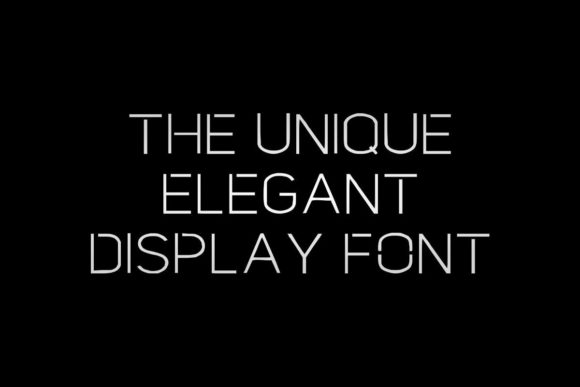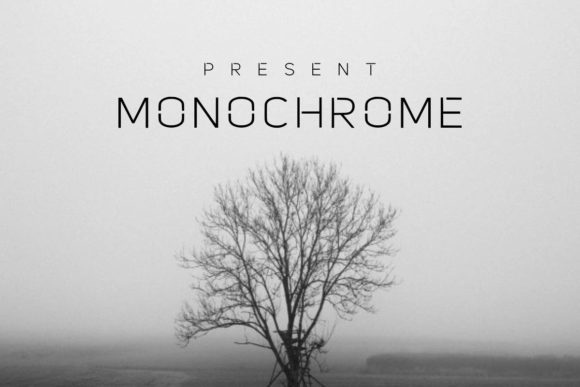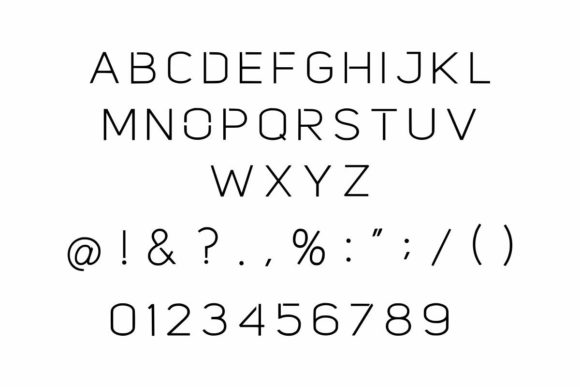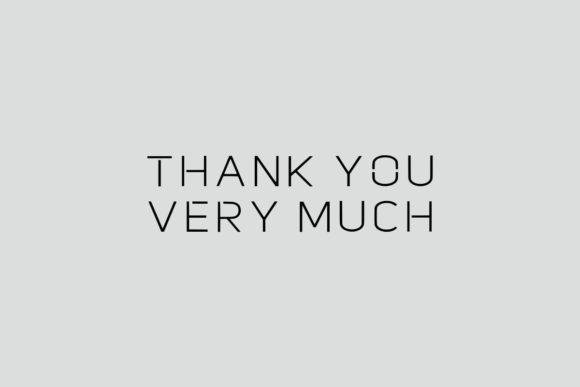
Introduction to Gotenk Font
Have you ever stared at a blank canvas, eager to bring your creative idea to life, but unsure of the perfect design element to tie everything together? This is where the Gotenk Font comes in – a game-changing design resource that can elevate your creative project to new heights.
As a designer, you understand the importance of a high-quality font that not only complements your design but also sets it apart from the rest. The Gotenk Font is a minimal and neat sans serif font that offers a transparent background, making it the perfect addition to your design arsenal. With its versatility, you can easily use it on a wide range of projects, from digital to print, and watch your ideas shine.
Key Features of Gotenk Font
- Gotenk Font comes in a single weight with 256 glyphs, making it suitable for various design applications
- Unique characteristics: Distinctive and modern design aesthetic, perfect for adding a touch of elegance to creative projects
Honest Review: Gotenk Font
As a designer, I’m always on the lookout for high-quality design resources that can elevate my creative projects. Recently, I had the chance to try out the Gotenk Font, and I must say it’s been a pleasant experience.
What works well: ✨ The Gotenk Font is incredibly versatile, with a wide range of styles and weights to choose from. It’s perfect for designers who want to add a unique touch to their projects without sacrificing readability. I also appreciate the transparent background, which makes it easy to layer and composite with other design elements.
- ✨ High-quality glyphs and characters
- ✨ Wide range of styles and weights
- ✨ Transparent background for easy compositing
However, there are some limitations: ⚠️ The font could benefit from more language support, as it’s currently only available in a limited number of languages. Additionally, the free version has some watermarked elements, which may not be ideal for commercial projects.
Overall, I’m impressed with the Gotenk Font, and I think it’s a great addition to any designer’s toolkit. While it’s not perfect, its strengths far outweigh its limitations, making it a solid choice for designers looking for a high-quality, free design resource.
The Gotenk Font is versatile and can be used in a variety of creative projects, including logos, business cards, brochures, and social media graphics.